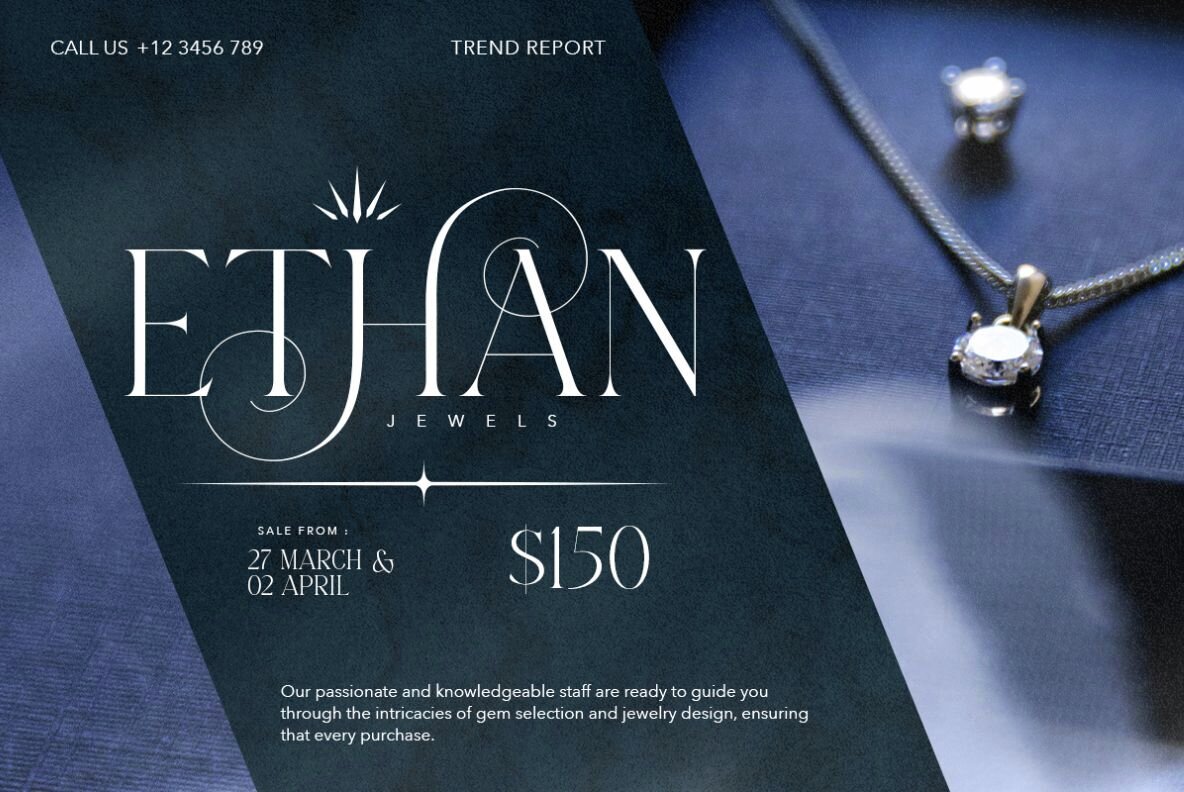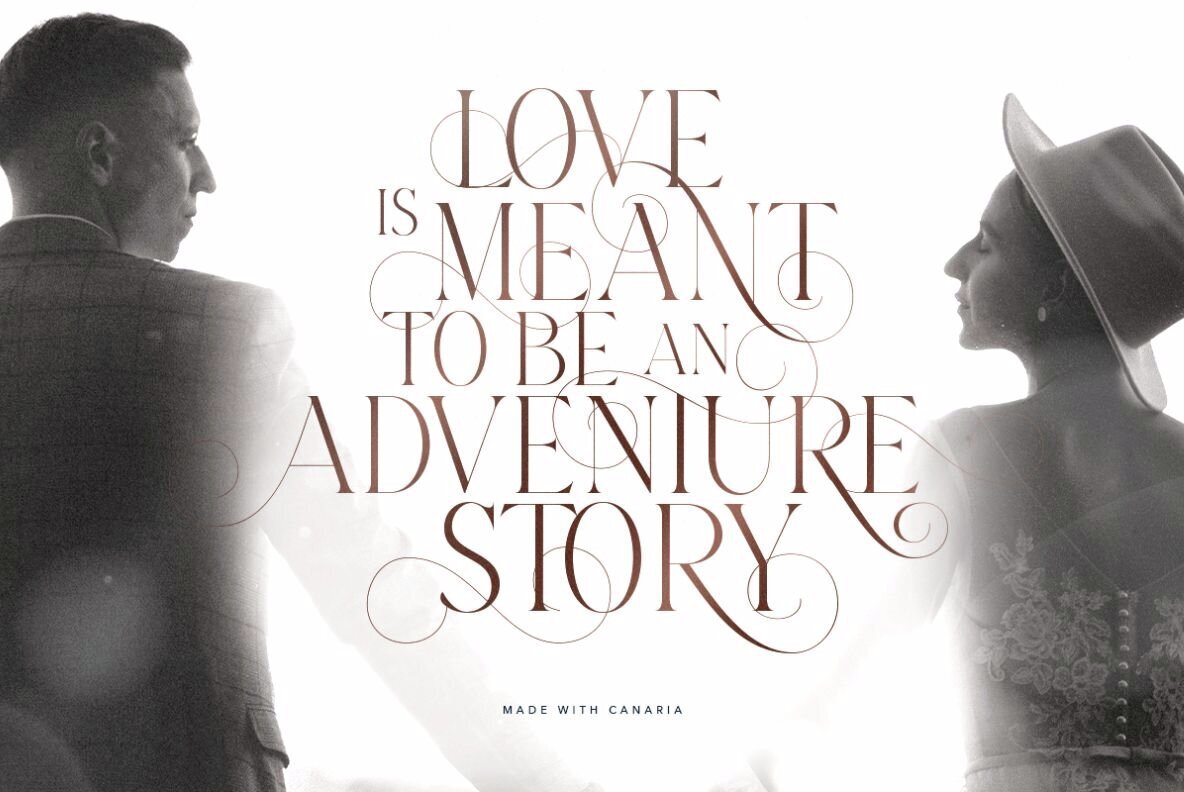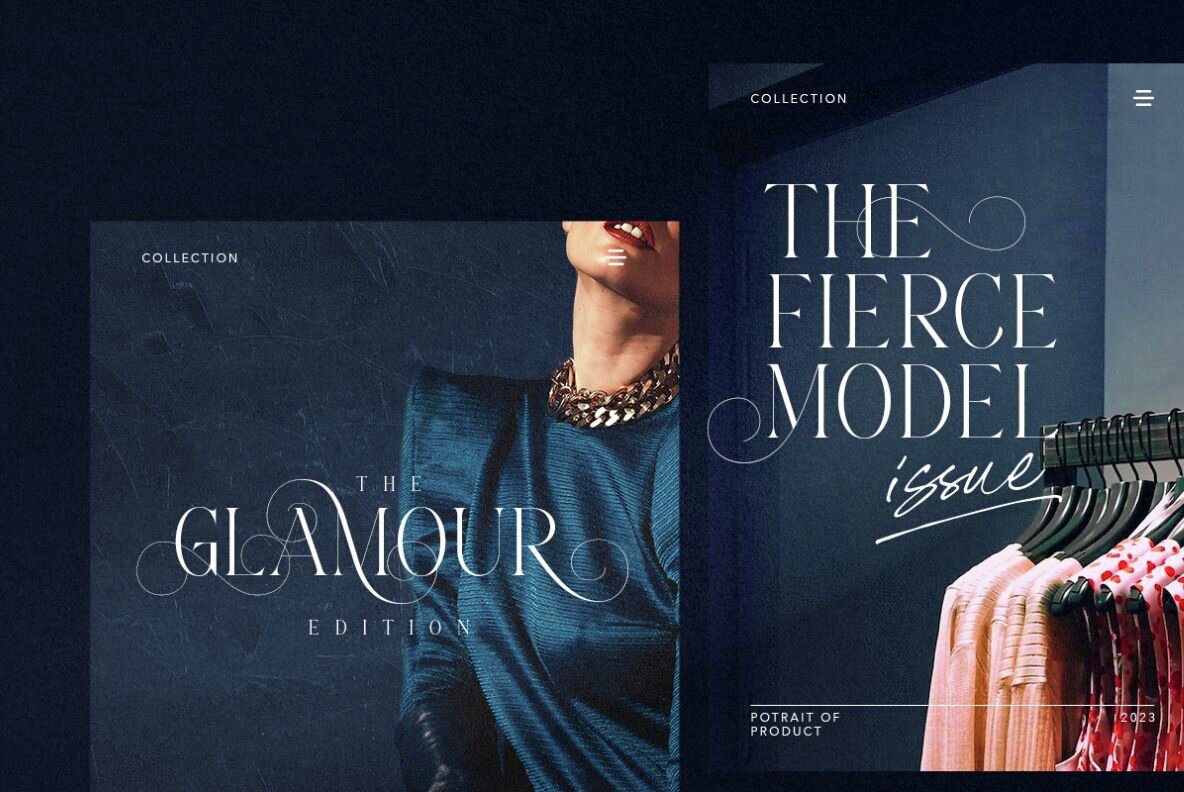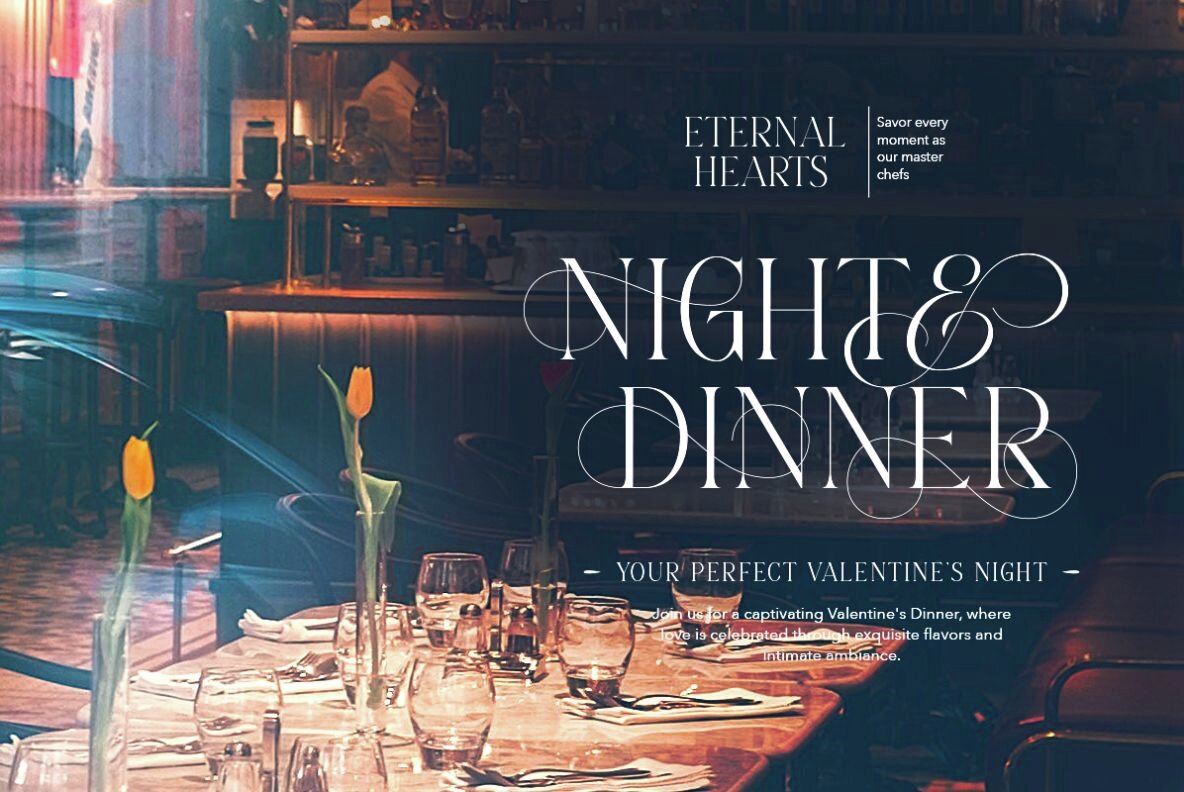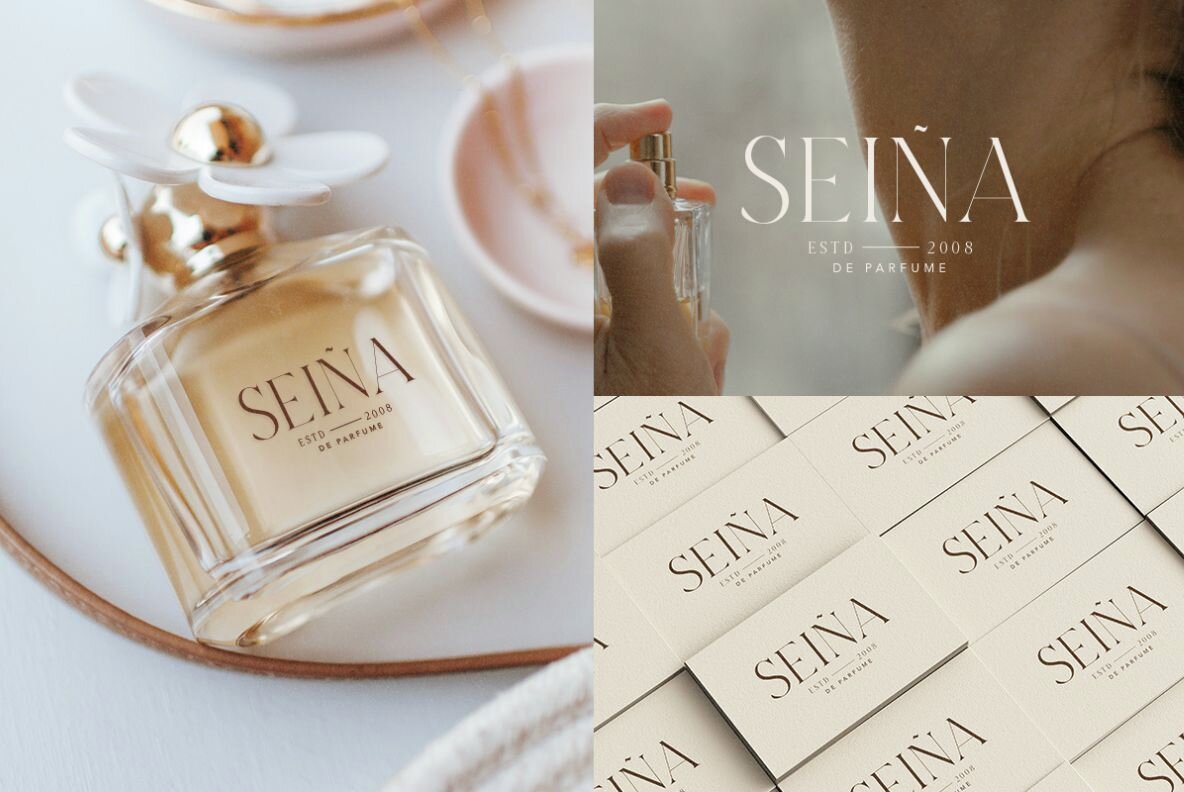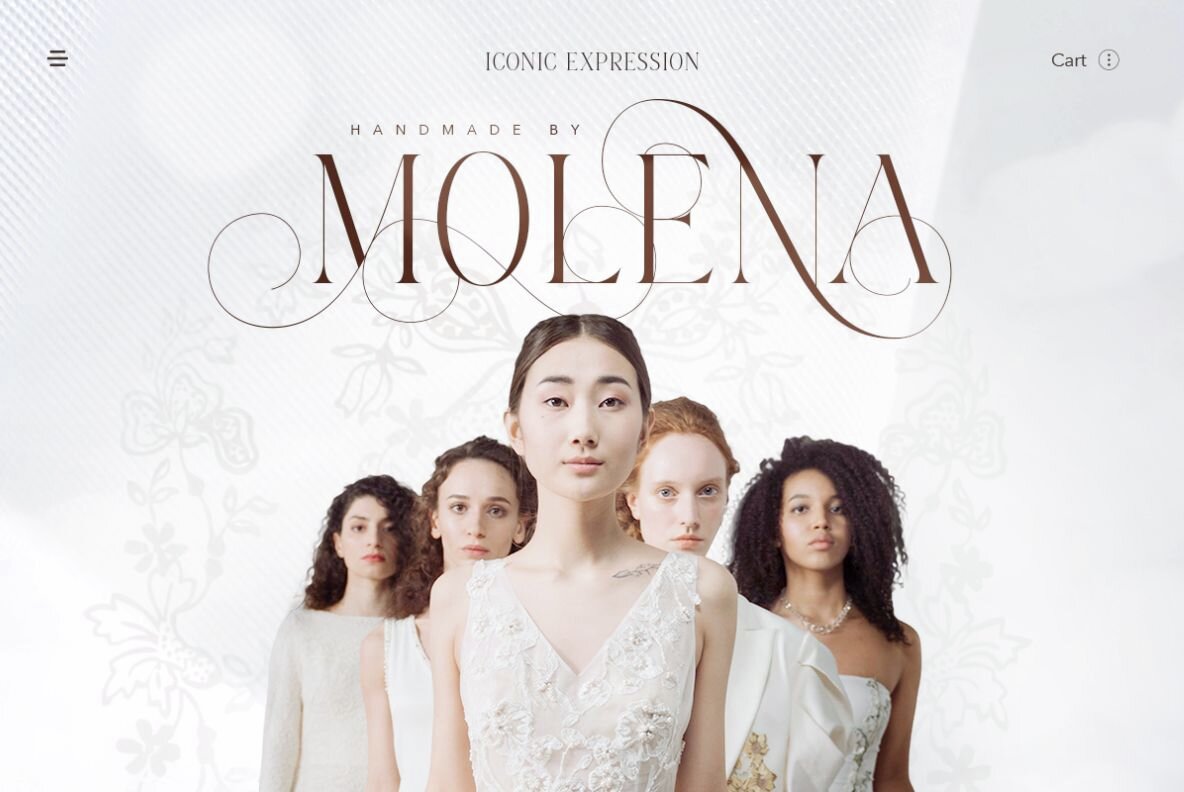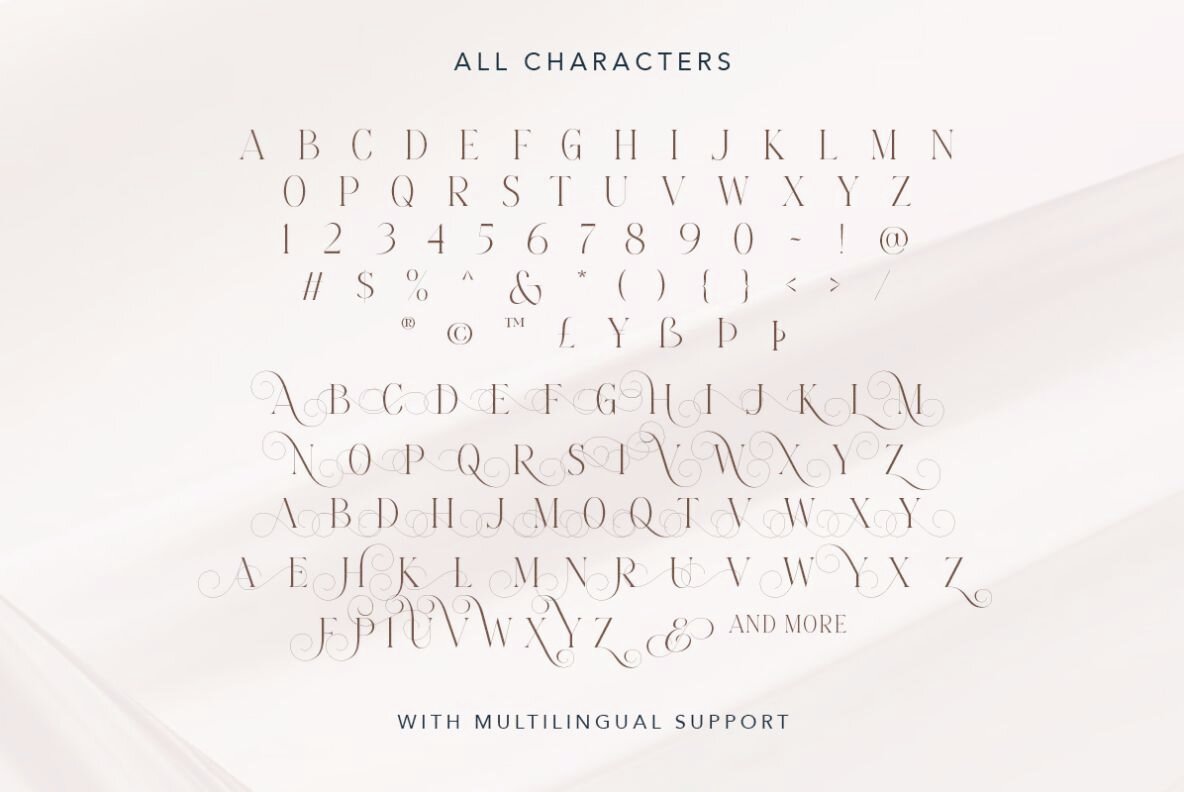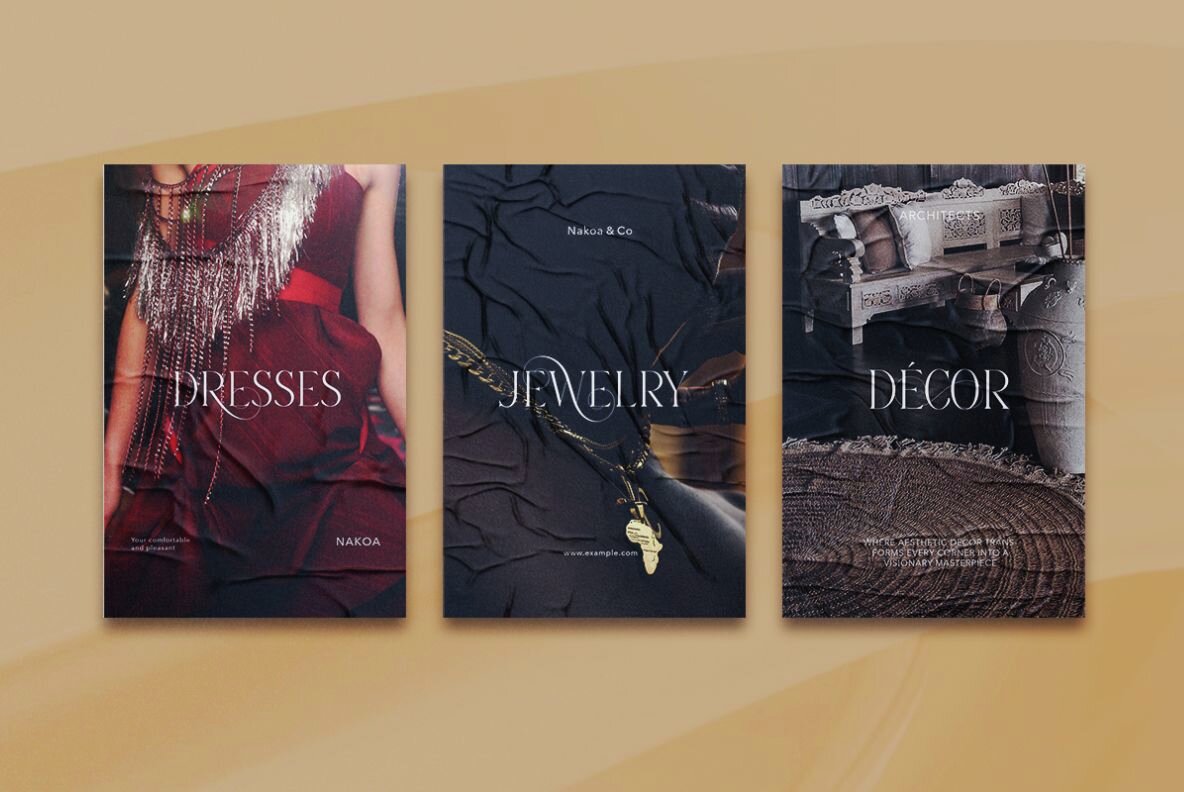
Canaria Font
Canaria Regular
Canaria is an exquisite light serif typeface designed in all capital letters, perfect for projects that seek an elegant and luxurious aesthetic. Featuring a rich variety of ligatures and alternate characters, this typeface allows for creative customization in your design work. The flexibility of Canaria enhances visual appeal by enabling seamless integration of ligatures and alternates with its standard base characters.
This typeface is not only visually appealing but also functionally versatile. It supports multiple languages, making it a suitable choice for international projects that require multilingual capabilities. Whether used in branding, editorial design, or luxury product promotions, Canaria's sophisticated style and adaptability offer a high level of refinement to any design undertaking.